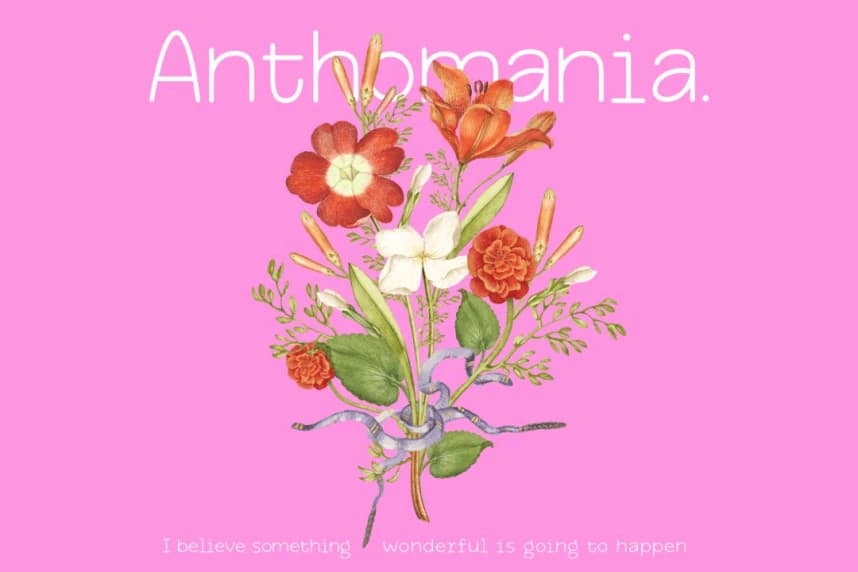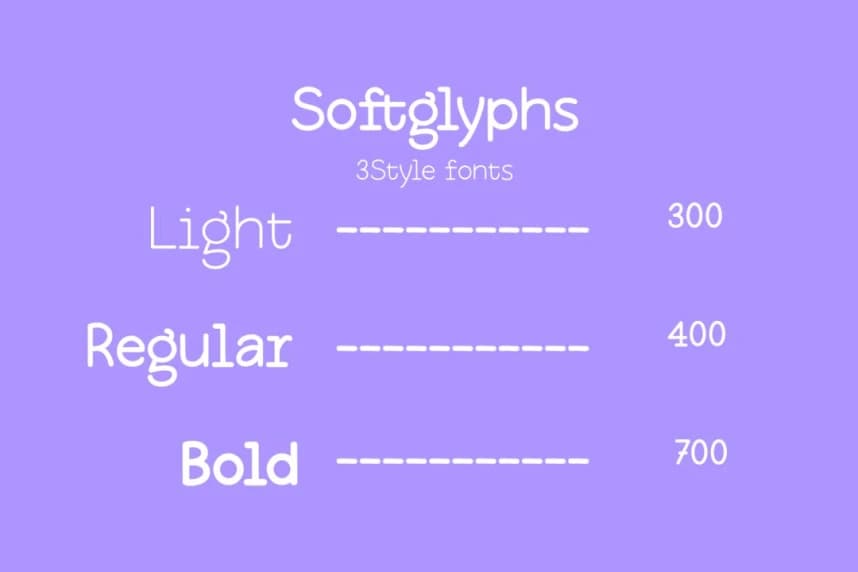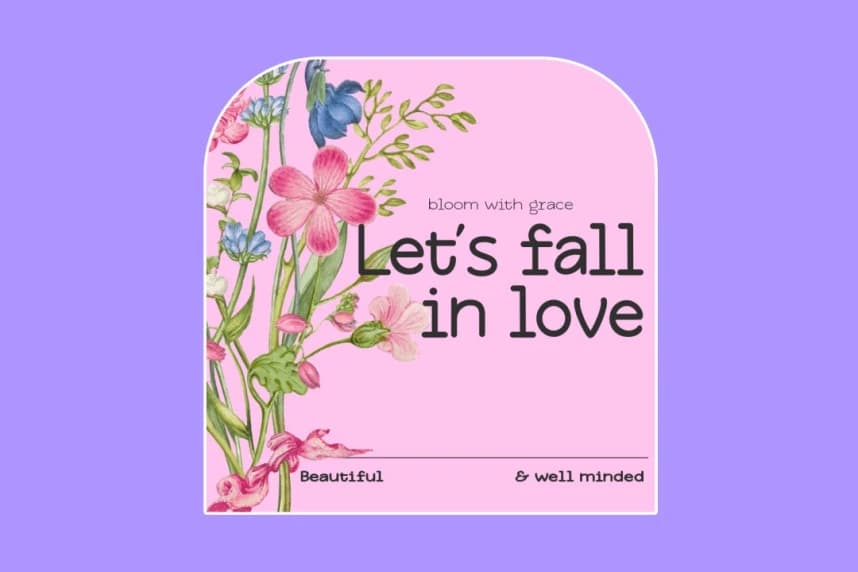
Softglyphs Font
Softglyphs Font is a modern and elegant display typeface with a soft, rounded character and stylish contemporary feel. Designed to bring warmth and personality, this font blends smooth curves with clean letterforms, making it perfect for branding